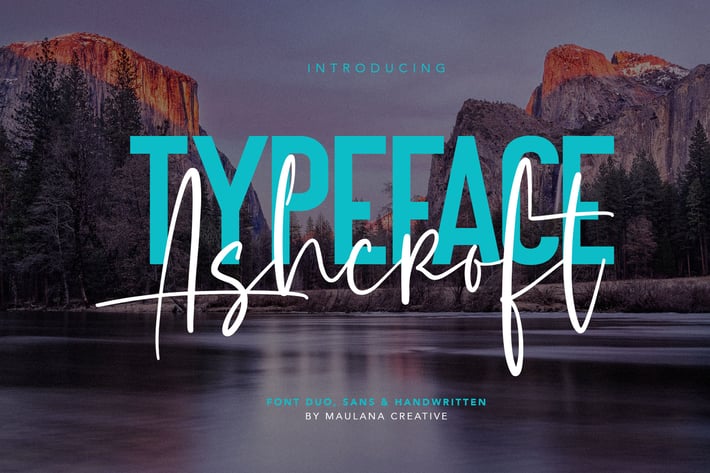
Ashcroft Font Family
Give your designs an authentic handcrafted feel. "Ashcroft Font Family" is perfectly suited to signature, stationery, logo, typography quotes, magazine or book cover, website header, clothing, branding, packaging design and more.